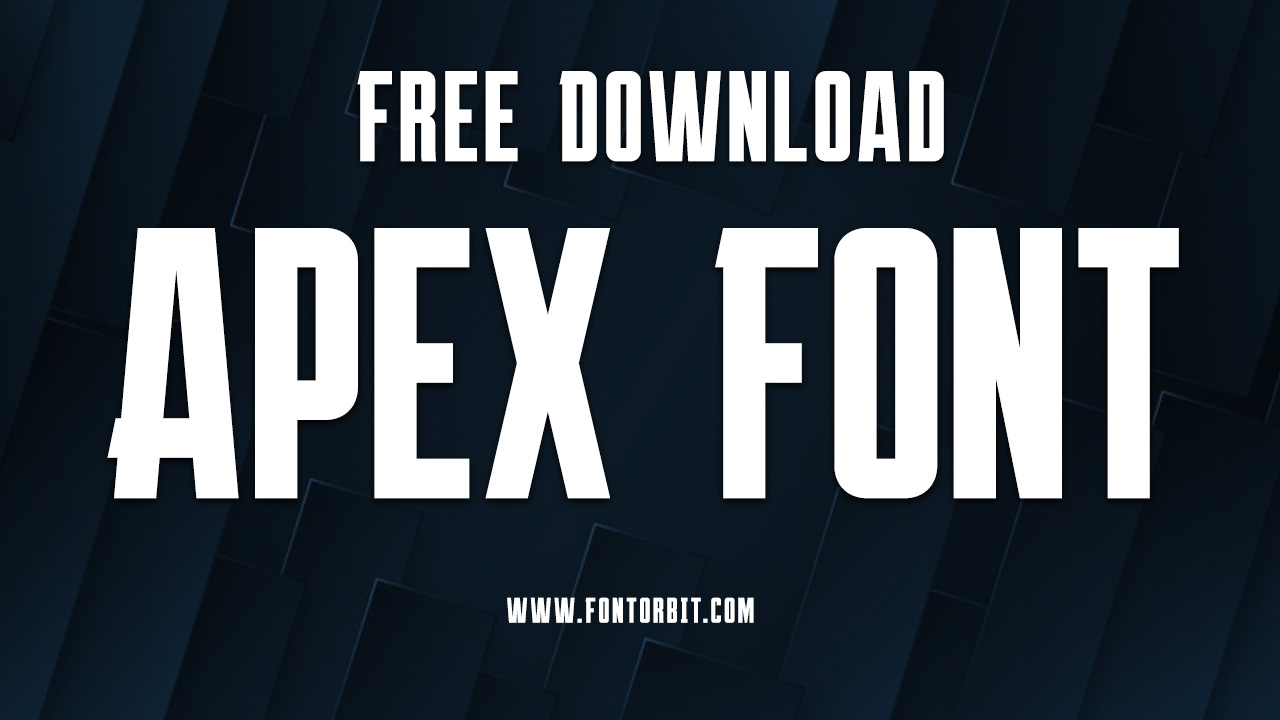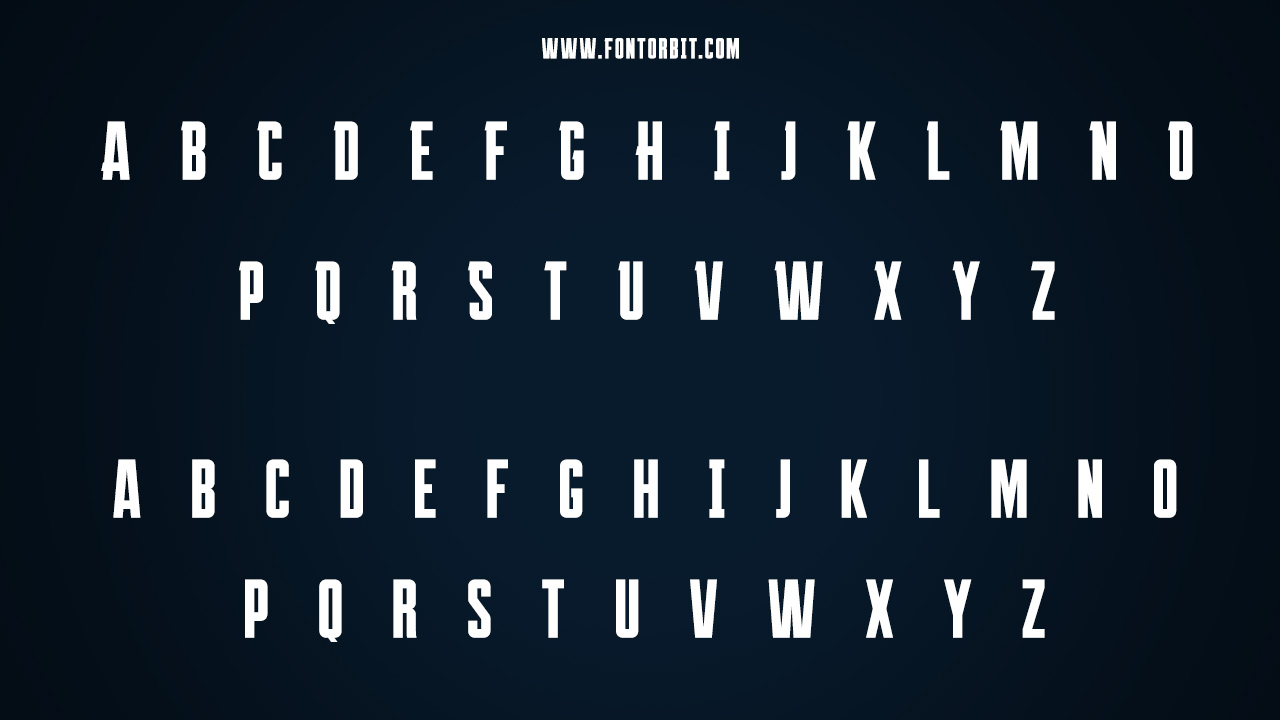
The Apex Font is a modern sans-serif display typeface designed by Jeremy Nelson. Released by Nelson Design, this font family stands out for its clean, geometric style and contemporary look, making it perfect for a variety of design applications.
The Apex font typeface family provides a versatile range of styles that cater to various design needs. It includes:
Notable Uses Of Apex
The Apex font typeface is ideal for high-impact projects where clarity and modern aesthetics are key. Common uses include:
- Branding and Logos
- Headlines and Titles
The Apex font typeface is well-suited for:
- Corporate Communications
- Creative Projects
- Digital Media
The Apex font typeface is a modern, versatile font that can elevate your design projects with its clean and geometric style. Whether for branding, web design, or creative projects, its range of weights and styles ensures it meets various design needs. Explore its potential to add a contemporary edge to your visual communication.
4.Is Apex Font Suitable For Web Design?
Yes, its clean and modern look works well for web design.